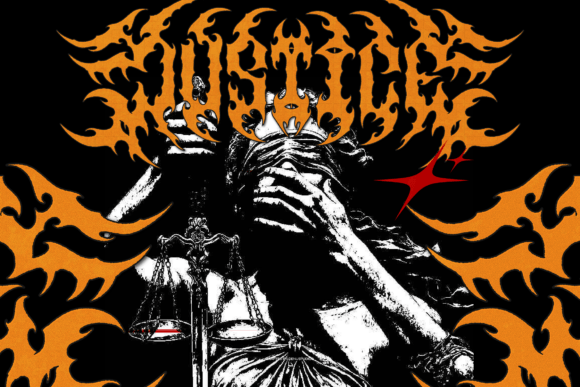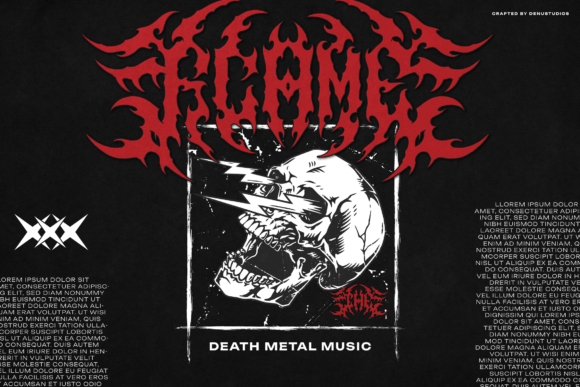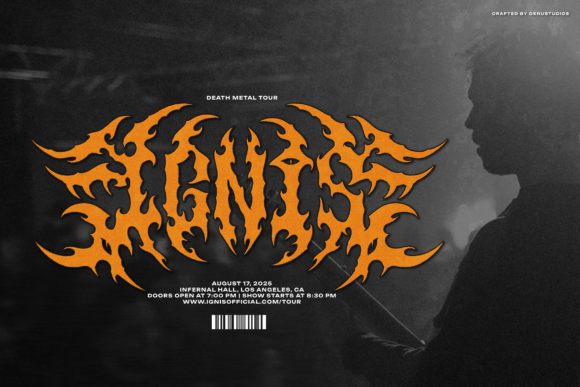
Grimore Morph Font: A Unique & Bold Display Font for Logo Design
About the Grimore Morph Font
Experience the unique personality of Grimore Morph Font, a font designed for impact. Grimore Morph is a death metal font, suitable for any projects such as: logos, branding projects, homeware designs, product packaging, mugs, quotes, posters, shopping bags, t-shirts, book covers, name card, invitation cards, greeting cards, label, photography, watermark, special events, and all your other lovely projects that need a Death Metal Font taste.
Grimore Morph’s aggressive forms excel in large-scale applications like posters, album art, and branding for heavy music or related products. Its strong character also works well for impactful headlines and short, impactful text on packaging. However, its highly stylized nature makes it unsuitable for body text or UI elements where readability is paramount. Avoid using it for long paragraphs or small sizes.
For a balanced design, pair Grimore Morph with a clean sans-serif like Open Sans for supporting text, creating a striking contrast between the brutalist font and a legible, modern typeface. Alternatively, a classic serif like Garamond can lend an unexpected touch of sophistication, tempering the font’s intensity.
The overall personality of Grimore Morph is rebellious and bold, conveying power and aggression. It’s ideal for brands aiming for a dark, intense, or high-energy image.
Grimore Morph Font Usage Examples
Grimore Morph Font Example